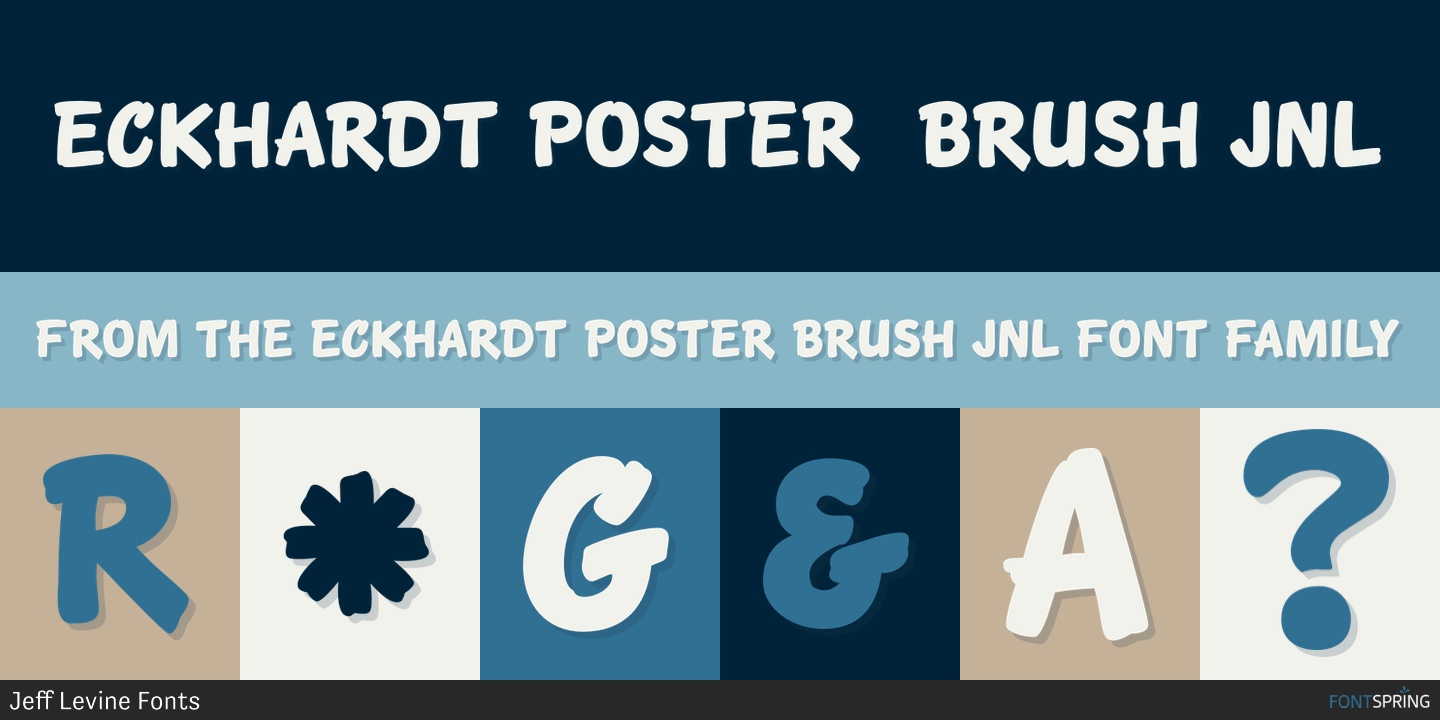
Eckhardt Poster Brush JNL Font
Eckhardt Poster Brush JNL Font is perfect for vintage advertising agencies, retro poster design studios, nostalgic entertainment venues, classic theater productions, heritage sign painting companies, and authentic vintage branding projects. Its expressive character makes it ideal for old-school barbershops, vintage record stores, retro diner signage, classic car show materials, nostalgic music venues, and any project requiring authentic brush lettering with vintage poster appeal and classic advertising charm.
This font is exciting because it captures the authentic craftsmanship and artistic energy of hand-painted vintage posters while delivering contemporary functionality for brands celebrating traditional sign painting and classic advertising aesthetics. The masterfully crafted brush strokes embody the skill and artistry of traditional poster artists, creating typography that feels genuinely hand-painted and authentically vintage, perfect for audiences who appreciate traditional craftsmanship and classic design.
The Eckhardt Poster Brush JNL Font family typically includes Regular, Bold, and expressive variations with authentic brush alternates, vintage poster ligatures, and classic advertising elements that enhance its traditional personality. This comprehensive collection enables vintage design professionals to create authentic brand systems that maintain period credibility while offering creative flexibility for various retro applications requiring both historical accuracy and contemporary vintage market positioning.